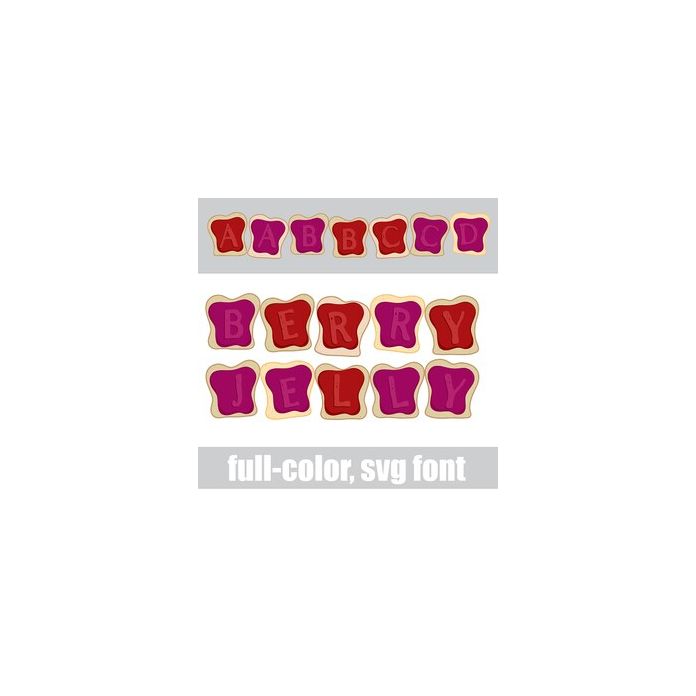
This full-color font looks like toast with berry colored jelly. There is an alt case w/ additional colors you can access through your system or Silhouette's glyph map.